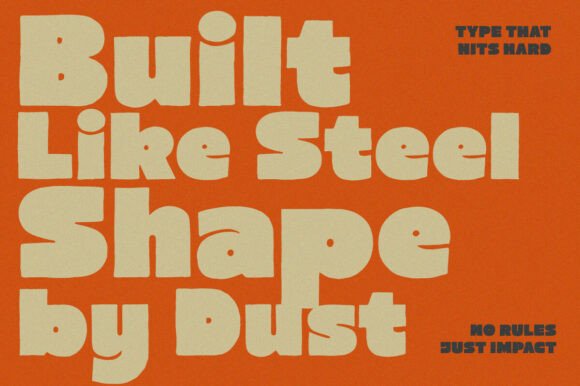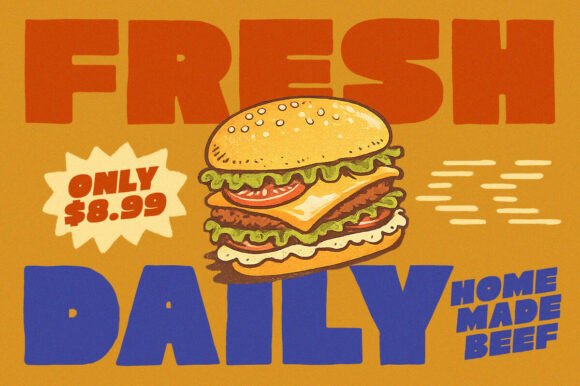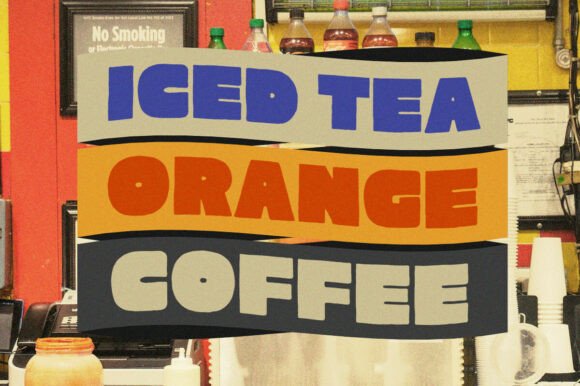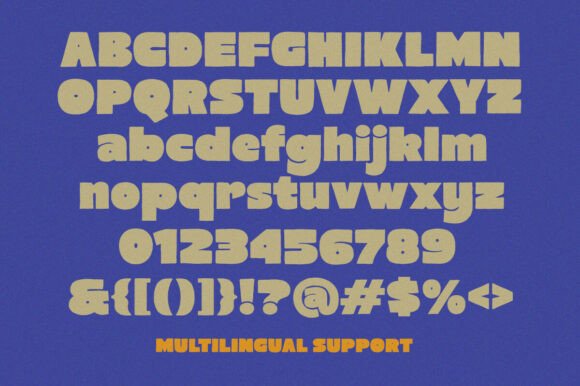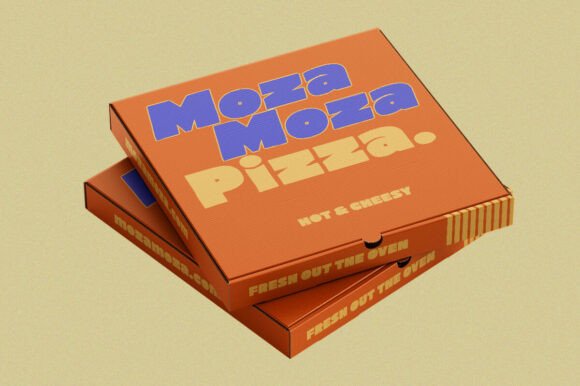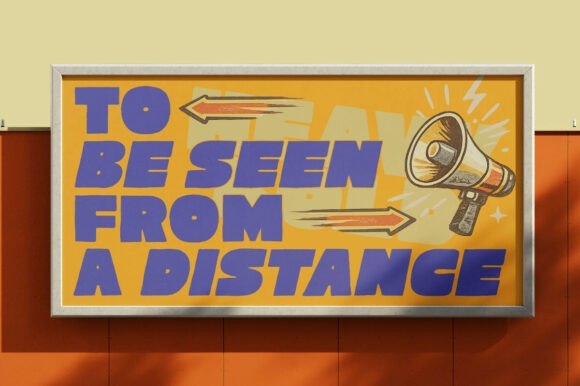
Dust Forge Font: Unleash the Power of Retro Energy in Your Designs
Are you tired of using the same old fonts in your designs? Look no further than the Dust Forge font, a chunky display sans serif that packs a big punch of retro energy and bold attitude. This font is perfect for designers and crafters who want to add a touch of nostalgia and playfulness to their work.
The Characteristics of Dust Forge Font
Dust Forge font is built with thick curves, soft corners, and playful heavyweight shapes, making it a true showstopper. Its unique design brings instant eye-candy to a variety of applications, including posters, food branding, packaging, streetwear, album covers, and loud headline designs. The font’s bold and chunky texture gives it a distinctive look that’s sure to grab attention.
What Makes Dust Forge Font Stand Out
One of the things that sets Dust Forge font apart is its retro vibe. The font’s design is reminiscent of classic fonts from the 80s and 90s, but with a modern twist. The regular and slanted styles give you extra punch for creating fun layouts with a smooth vintage twist. Whether you’re designing a poster, a label, or a headline, Dust Forge font is sure to make your work stand out.
Dust Forge font is incredibly versatile and can be used in a wide range of applications. Here are just a few ideas to get you started:
- Posters: Add a bold and eye-catching headline to your poster with Dust Forge font.
- Food Branding: Give your food labels and packaging a fun and playful look with Dust Forge font.
- Packaging: Make your product stand out on store shelves with Dust Forge font.
- Streetwear: Add a touch of retro flair to your streetwear designs with Dust Forge font.
- Album Covers: Give your album cover a bold and eye-catching look with Dust Forge font.
- Loud Headline Designs: Use Dust Forge font to create bold and attention-grabbing headlines.
Tips for Using Dust Forge Font
Here are a few tips for using Dust Forge font in your designs:
- Use it boldly: Dust Forge font is designed to make a statement, so don’t be afraid to use it boldly.
- Experiment with colors: Try pairing Dust Forge font with bright and bold colors to really make it pop.
- Mix and match: Combine Dust Forge font with other fonts to create a unique and interesting look.
- Play with textures: Add texture to your design by pairing Dust Forge font with textured backgrounds or graphics.
Dust Forge font is a powerful and versatile font that’s perfect for designers and crafters who want to add a touch of retro energy to their work. With its bold and chunky texture, smooth vintage twist, and wide range of applications, Dust Forge font is sure to become a favorite in your design arsenal. So why wait? Give Dust Forge font a try today and see the impact it can have on your designs!